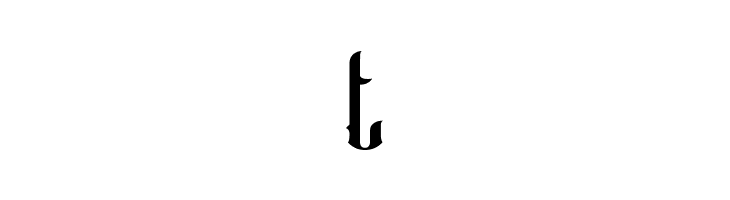
( Sronstudio - Yusron Billah )
A bold and intricate blackletter font with a medieval aesthetic.
A bold, gothic-style blackletter font with sharp, angular lines.
( Font by Gianluca Aiello )
A bold, gothic font with sharp, thorn-like edges and a dramatic style.